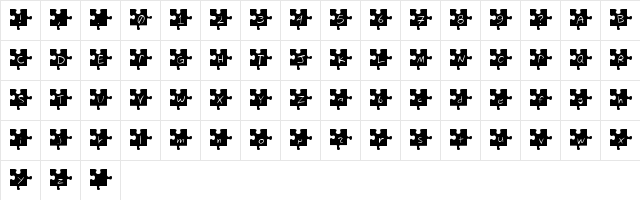
Jigsaw Regular
| Designer | Nihilschiz |
Design Context for Jigsaw Typeface
Jigsaw is a composed and adaptable typeface that performs quietly and consistently across a wide range of design contexts.